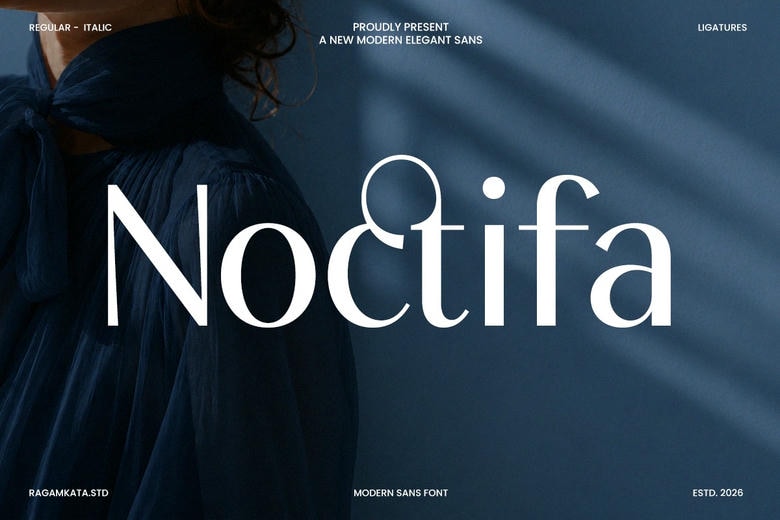
Noctifa Font
Noctifa is a modern luxury sans-serif font created for sophisticated branding and editorial design. Its clean lines, balanced shapes, and elegant letters give your brand a confident and stylish look.
Noctifa is designed for creative professionals and works well in fashion campaigns, luxury branding, magazines, cosmetics, packaging, logos, websites, social media, ads, and other premium projects. Its balanced design and classic style make it a strong choice for bold headlines and polished brand identities.
Whether you’re a fashion label, designing premium packaging, or working on eye-catching editorial layouts, Noctifa gives you the clarity and elegance.
Noctifa Sans Serif Font